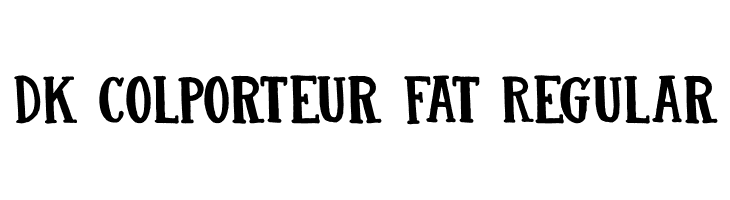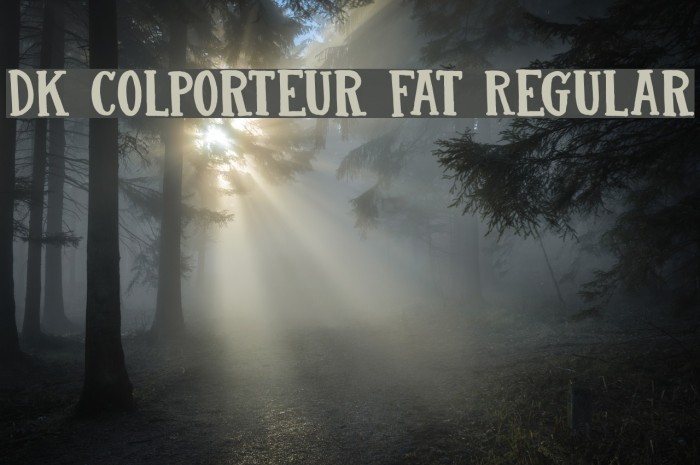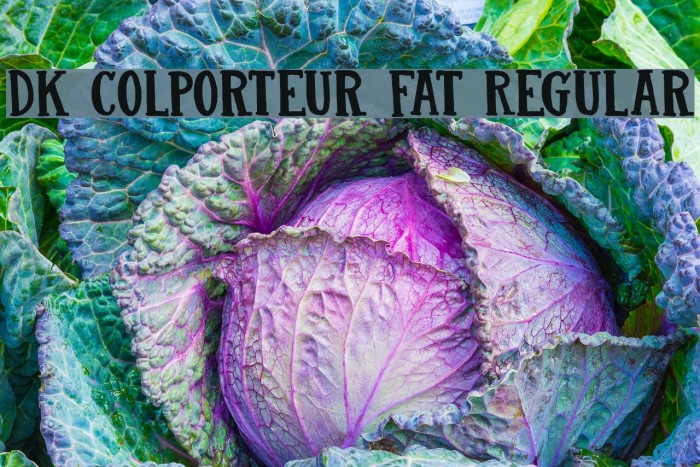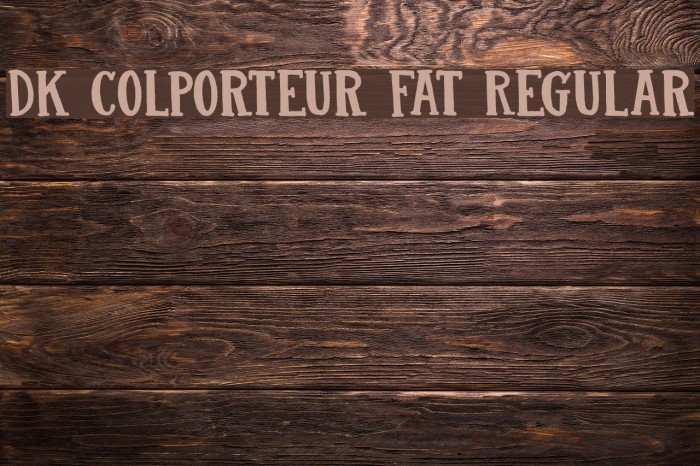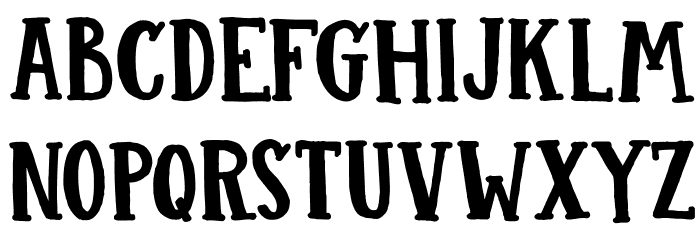
DK Colporteur Fat Regular Font
This font features a bold and playful design with a hand-drawn aesthetic. The characters are slightly irregular, giving them a whimsical and artistic feel. The uppercase letters are prominent and have a strong presence, while the lowercase letters maintain a consistent style with a touch of quirkiness. The numbers and special characters are designed to match the overall playful theme, with unique elements that add character. This font is ideal for projects that require a fun and engaging look, such as children's books, posters, or creative branding.
• Proposed Projects: Ideal for children's books, creative branding, posters, and playful designs.
• Category: Decorative/Display
• Contrast: Medium
• Overall Style: Playful, Artistic
• Use Case: Headlines, Logos, Posters